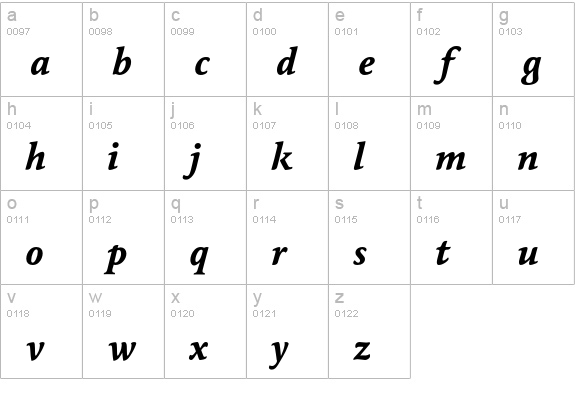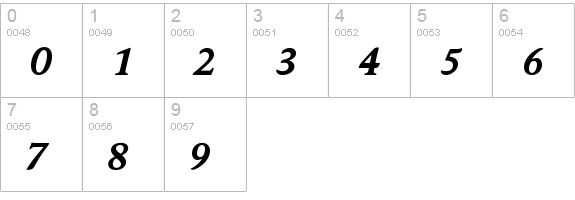
Maxime Std Bold Italic Font Details
Maxime Std Bold Italic is a strong, high-contrast, italic variant in the Maxime typeface family \xE2\x80\x94 well suited to headlines, attention-grabbing titles, and strong calls-to-action.
Maxime Std Bold Italic is a versatile and modern typeface that exudes sophistication and elegance. Its bold and italic characteristics make it perfect for headlines, titles, and other design elements that require a touch of flair. The sleek curves and strong lines of Maxime Std Bold Italic add a sense of dynamism and energy to any project. What sets Maxime Std Bold Italic apart is not only its striking aesthetics, but also the fact that it is available for free download at FontsMarket.com. This means that designers and creatives can easily access this high-quality font without any cost, making it a valuable addition to their font library. Whether you are working on branding, advertising, editorial design, or any other creative project, Maxime Std Bold Italic is sure to make a bold statement and leave a lasting impression. Download this impressive font for free at FontsMarket.com and elevate your designs with its unique style and versatility.